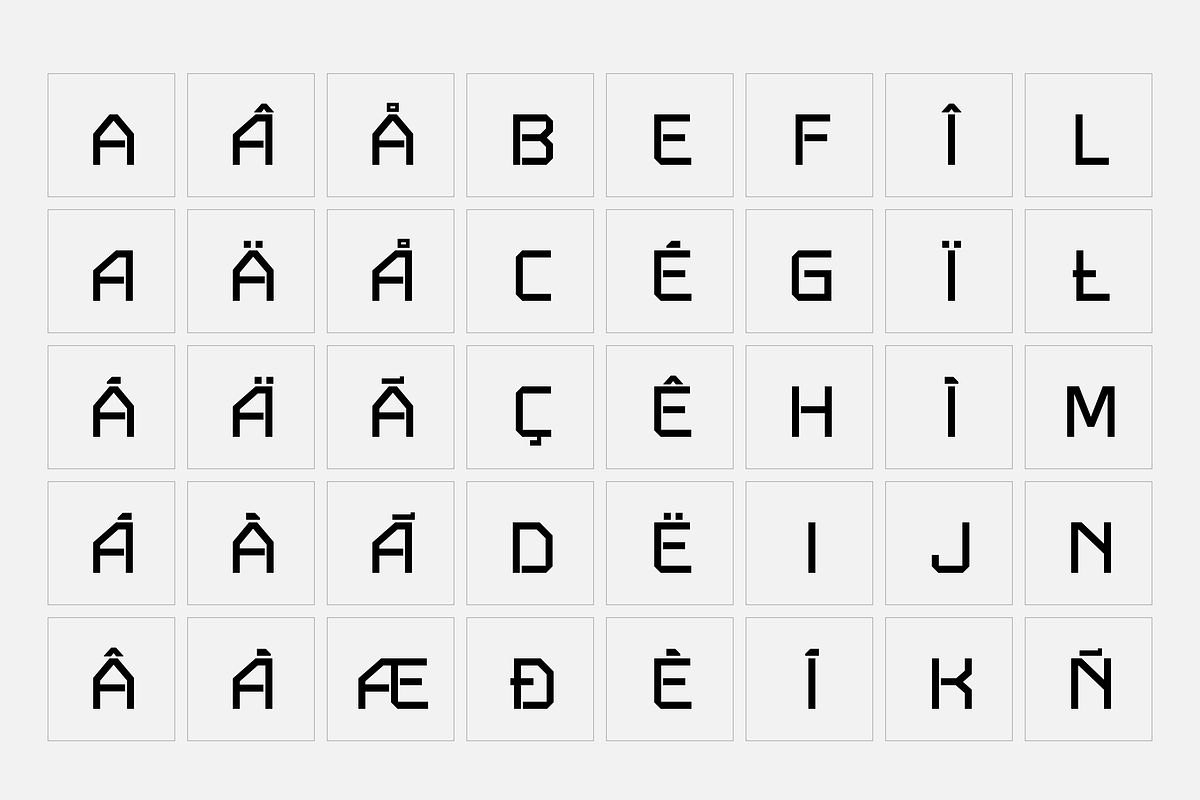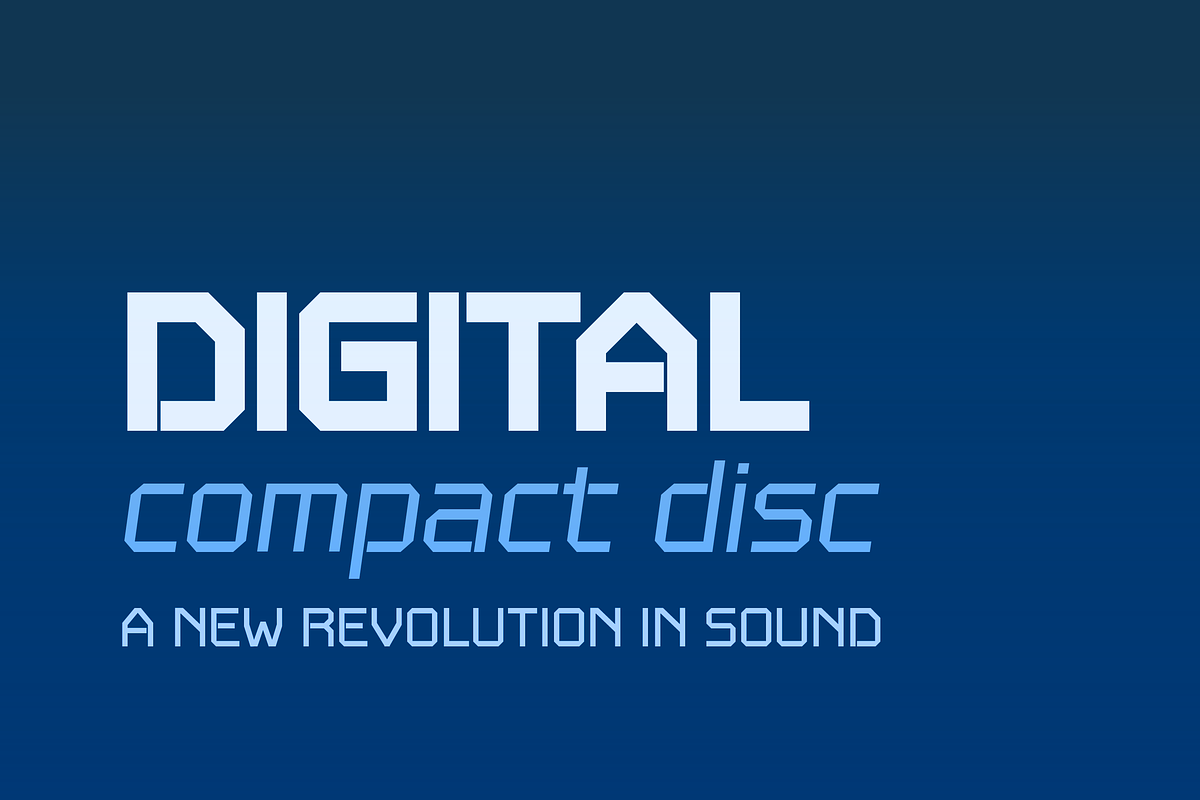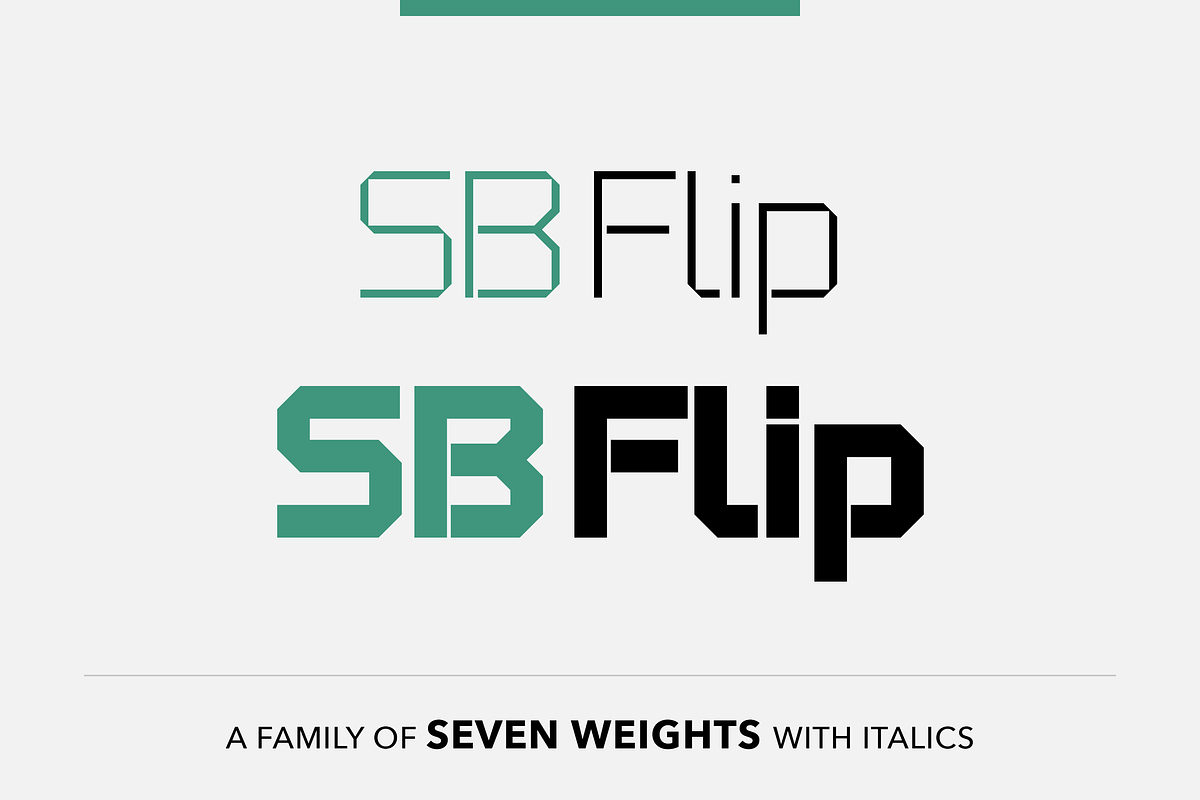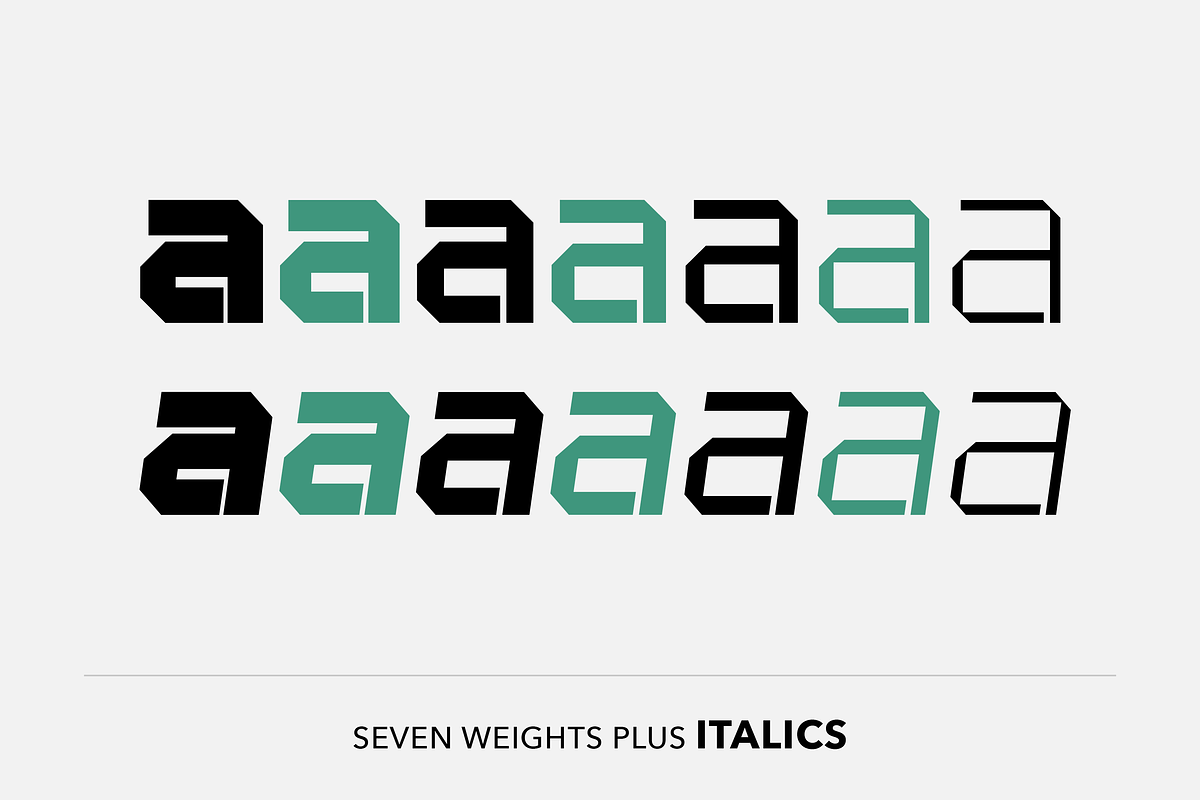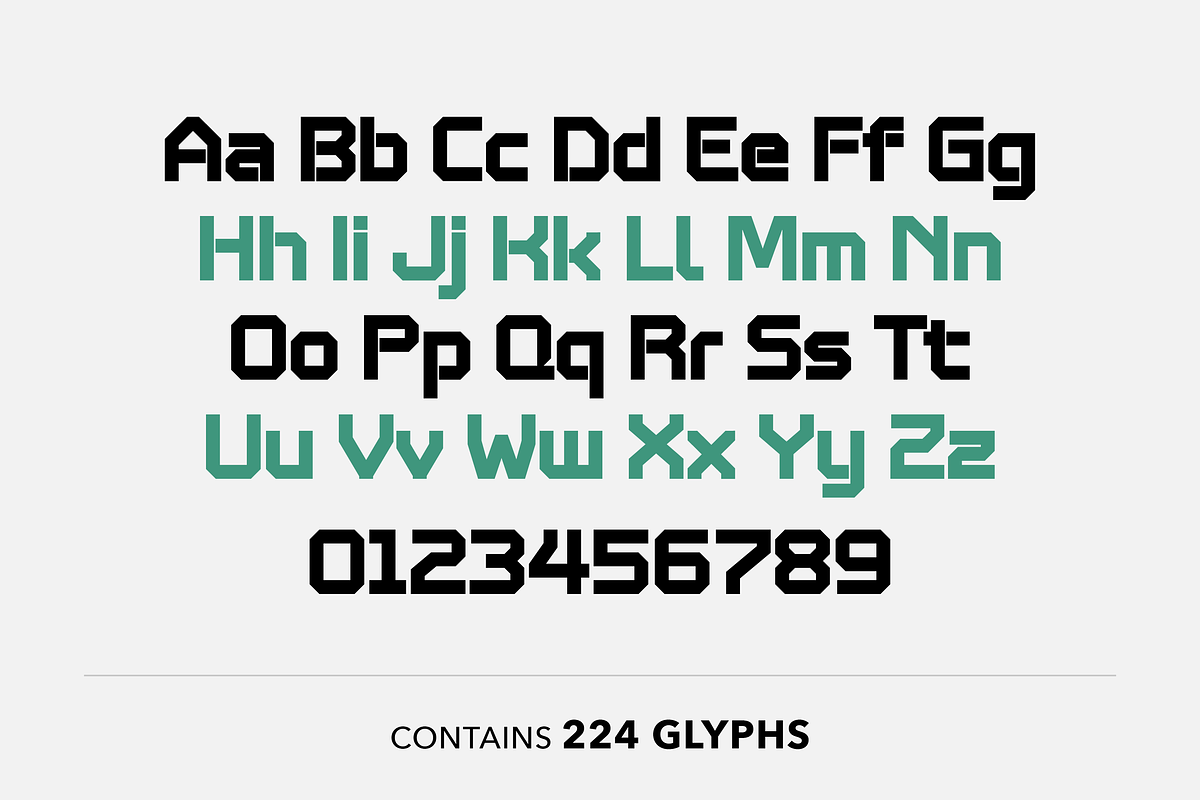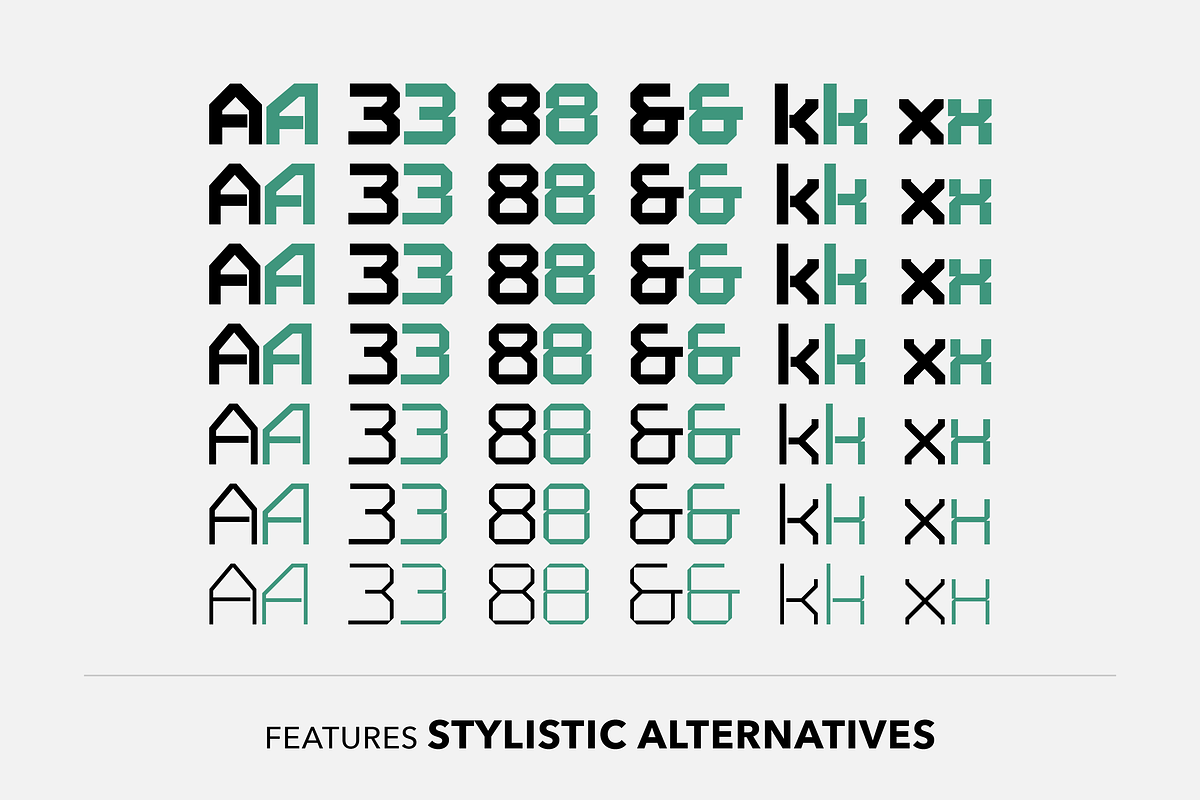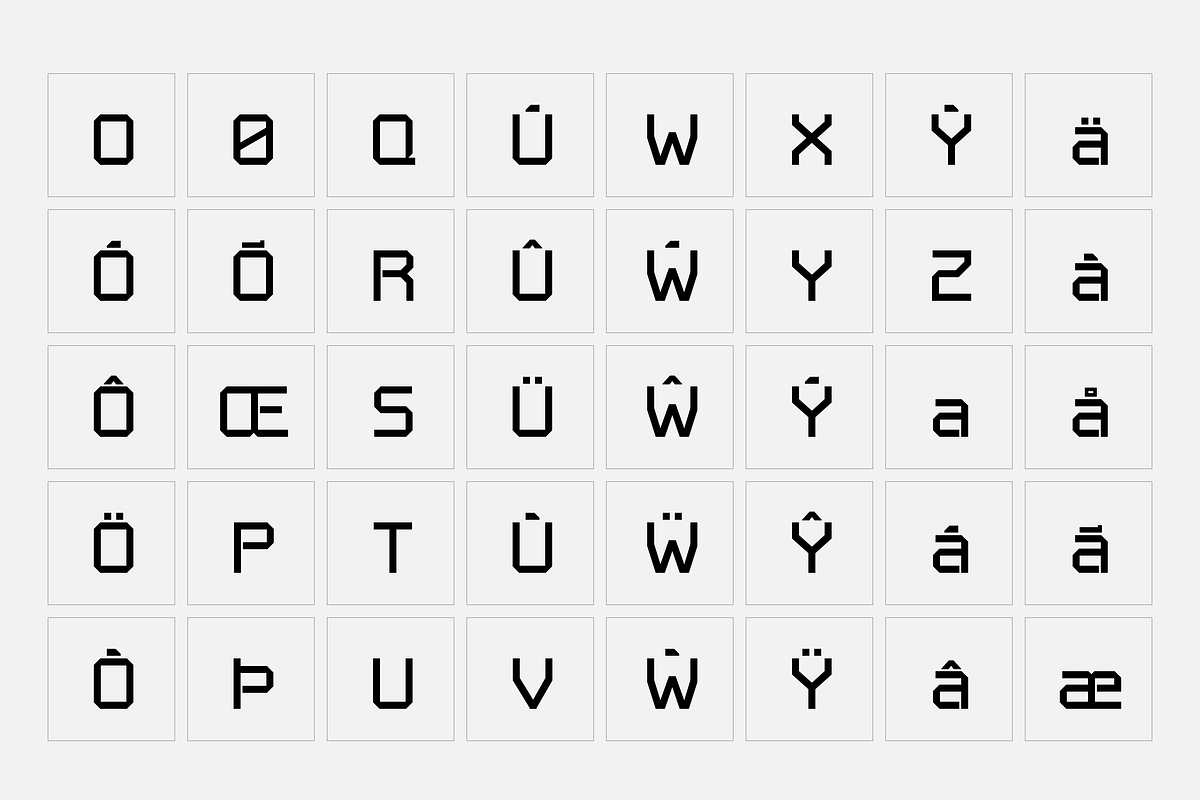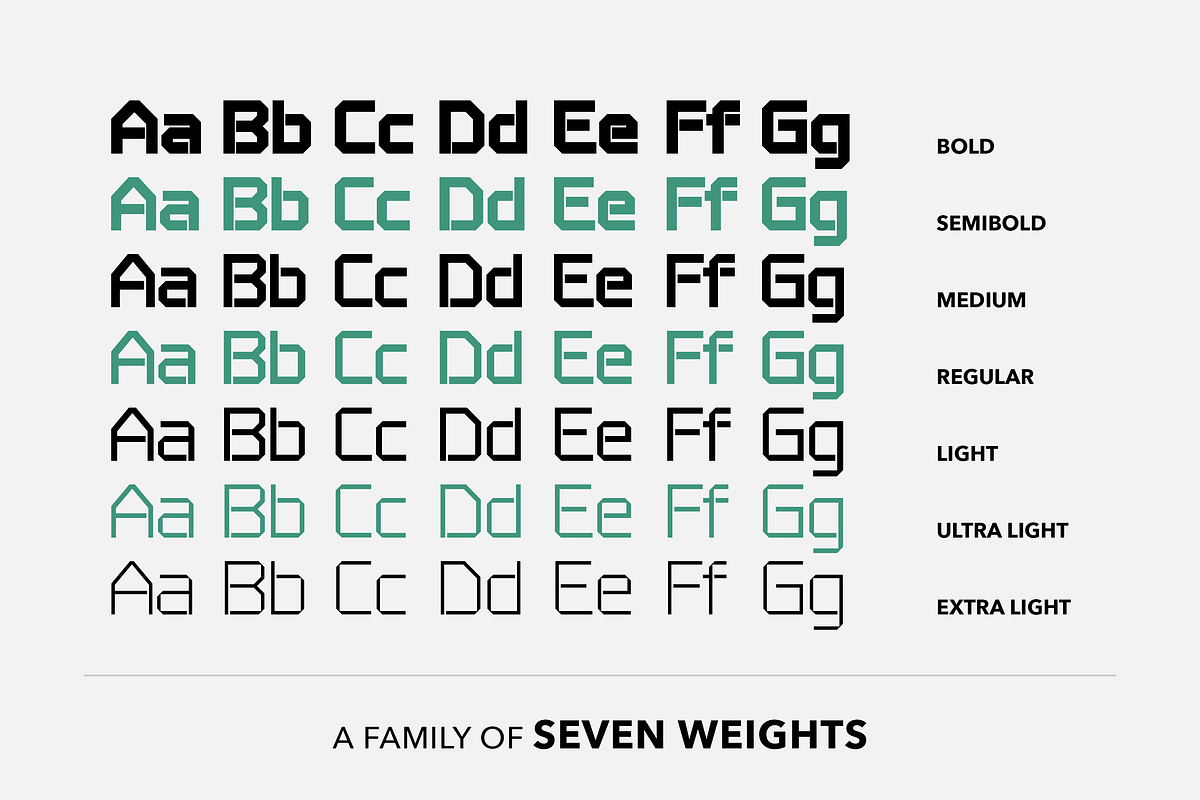
Flip - Square font
7 Weights: Extra Light, Ultra Light, Regular, Medium, Semibold, Bold.
This font contains 224 glyphs.
Supports 23 languages.
SB Flip is a square monoline sans-serif with stencil-like features and angular corners. It has a mechanical, futuristic, industrial look that is well suited to gaming and technology themed projects or projects based around computing and electronics. It is designed primarily as an impactful display typeface and its strong geometry means it works well for magazine and poster headlines.
SB Flip took its name from the way the corners were formed during the design process: the ‘folding’ of the horizontal and vertical stems form 45 degree angles at the corners, as if the letterforms were made from paper or tape. These letterforms were later boldened and stencil-like gaps added, and the typeface ended up with a much more militaristic feel than the early designs. 14x OpenType fonts: 7x base fonts with corresponding italics. 14x WOFF fonts: 7x base fonts with corresponding italics. 7 Weights: Extra Light, Ultra Light, Regular, Medium, Semibold, Bold. This font contains 224 glyphs. Supports 23 languages.